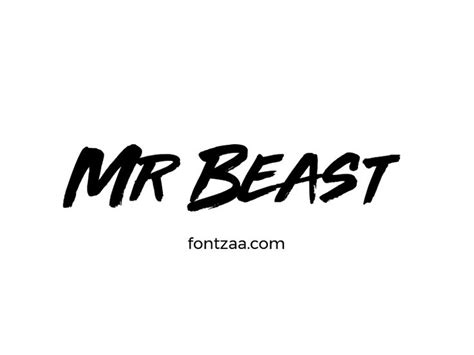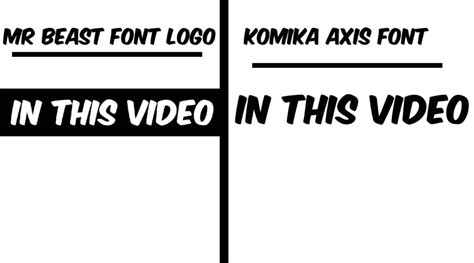
MR BEAST FONT
The MrBeast font is a popular and distinctive font that has gained recognition through its association with the popular YouTube personality MrBeast. This font has become an iconic element of his brand and content, adding a unique visual style to his videos and merchandise. The font's design is characterized by its bold and playful nature, often featuring sharp edges and a modern aesthetic.
The creation of the font is attributed to a collaboration between MrBeast and a type designer, resulting in a custom font that captures the essence of his brand. Its popularity has led to its use in various contexts, including social media posts, merchandise, and even as a feature in some of MrBeast's video titles and descriptions.
One of the key benefits of the MrBeast font is its ability to create a strong visual impact and enhance brand recognition. Its unique style allows for creative and eye-catching designs, making it a popular choice for those seeking to stand out in the digital world. The font's versatility also allows for its use in various media, from digital content to physical merchandise, ensuring a consistent and memorable visual presence.